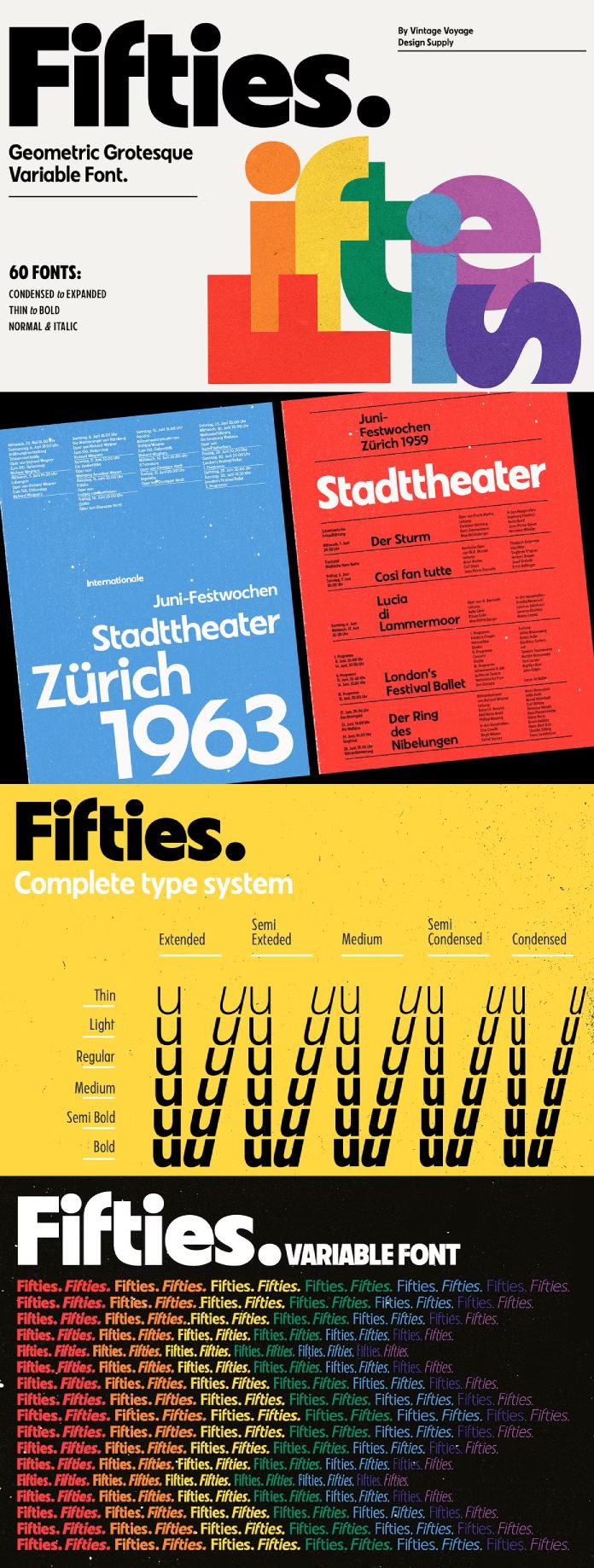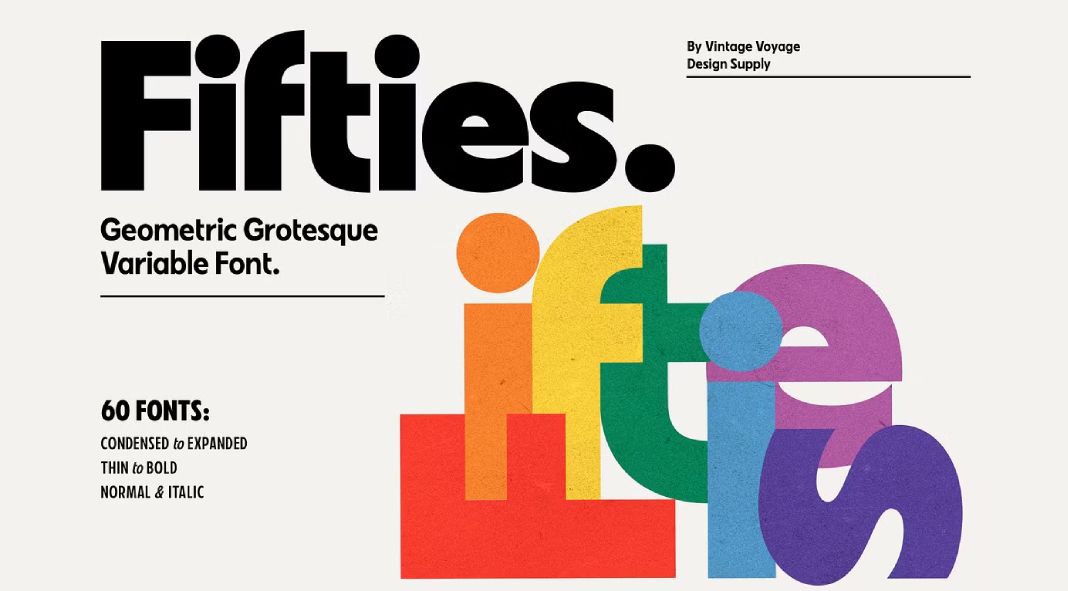
Create Nostalgic Elegance with the Fifties Font Family
The Fifties font family is a designer’s dream, offering a perfect blend of classic geometric shapes and a touch of humanistic grotesque. This unique combination creates a font that feels fresh and modern while retaining a subtle nod to the past.
A Modern Take on Mid-Century Modernism
Inspired by the aesthetics of 20th-century modernism, Fifties brings a touch of vintage charm to contemporary design projects. This versatile font family caters to a wide range of applications, ensuring you’ll find the perfect style to elevate your work.
Six Decades of Design Freedom
Fifties boasts a staggering 60 styles, including italics (slanted) variations. From the airy elegance of Expanded Thin to the bold, expressive punch of Condensed Bold, and the dynamic sharpness of Expanded Bold Italic, Fifties offers endless creative possibilities.
A Font for Every Occasion
Whether you’re crafting eye-catching theatre posters or lively party flyers, designing a vintage t-shirt or a modern web interface, creating impactful movie titles or sophisticated magazine headers, or visualizing information through infographics, Fifties seamlessly adapts to your needs.
Tailor-Made Typography
Fifties empowers you to personalize your typography. Utilize the pre-designed styles or unlock the full potential with the variable font format, allowing you to fine-tune weight and width for truly customized results.
A Feature-Rich Powerhouse
The Fifties font family comes loaded with OpenType features to enhance your design workflow. Take advantage of stylistic alternates for a variety of letterforms, fraction figures for precise numerical representation, subscript and superscript functionality, tabular figures for data-driven projects, and a comprehensive selection of typographic spaces for optimal layout control.
Weights & Widths:
- Weights: Thin, Light, Regular, Medium, Semi Bold, Bold
- Widths: Condensed, SemiCondensed, Medium, SemiExpanded, Expanded
Embrace the Versatility of Fifties
With its extensive range of styles, comprehensive features, and ability to adapt to diverse design needs, Fifties is sure to become a cornerstone in your font library. Embrace the power of nostalgia and create truly captivating designs with this remarkable font family.